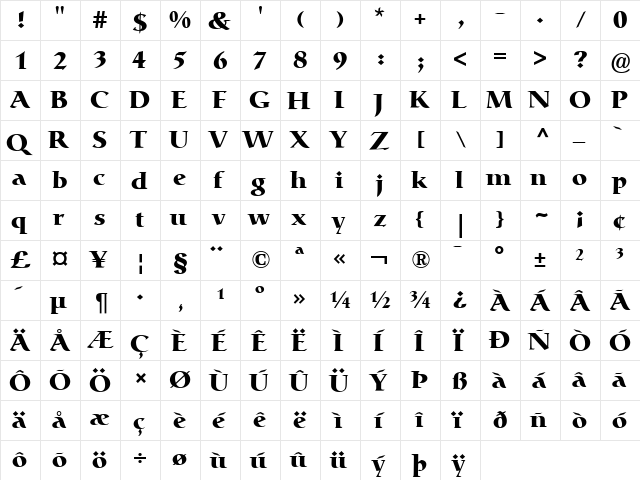
Catull Regular Font Preview
Catull Regular
Catull Regular Font Details
Design Context for Catull Typeface
Catull takes a measured approach to typography — its balanced proportions and neutral character make it a reliable workhorse for both digital and print work.
Pro Tip: Pair Catull with a font of contrasting weight or personality to build a more expressive typographic hierarchy.